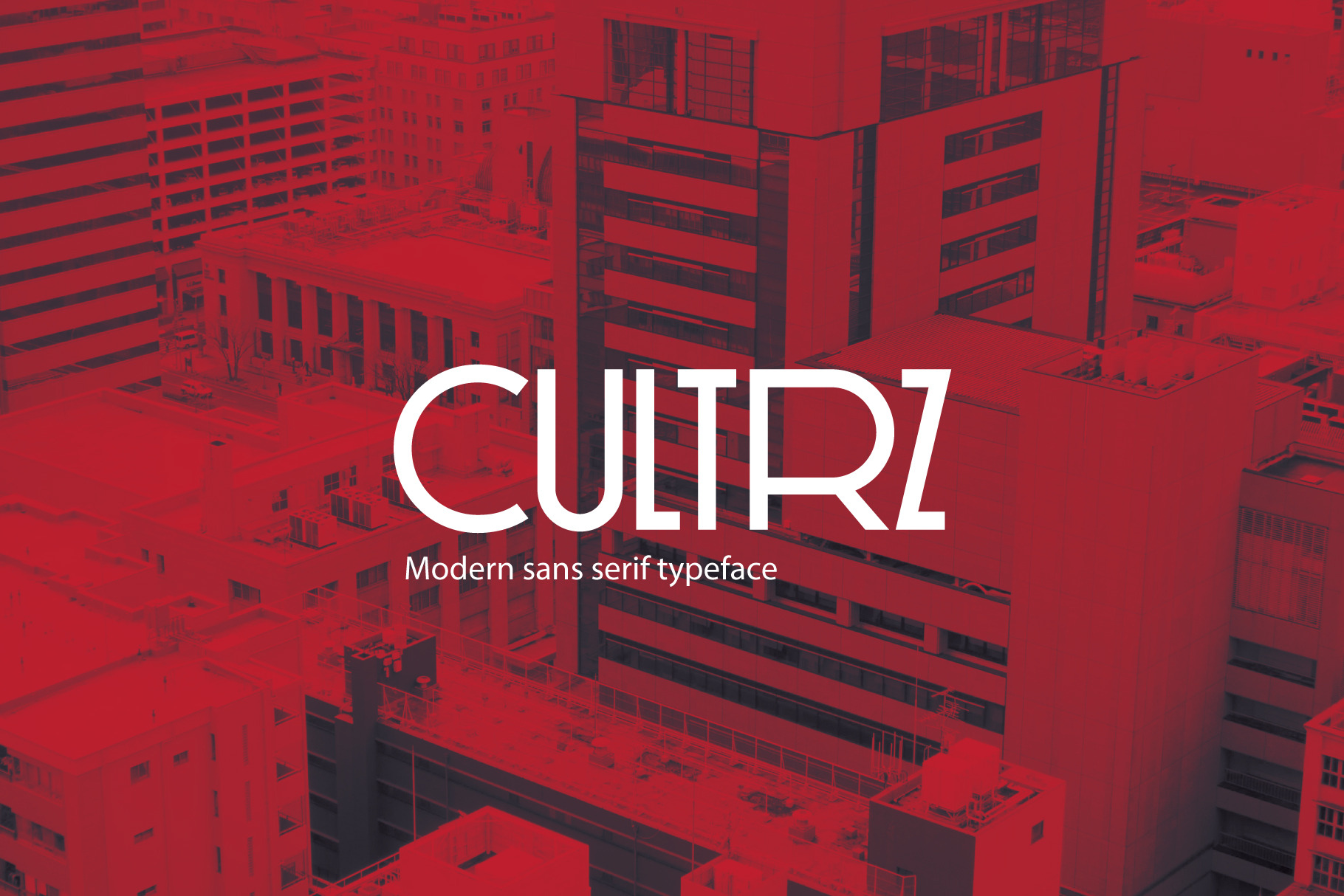
Cultrz Typeface
"Cultrz" is geometric display font. .
- Basic latin glyphs
- Uppercase letters
- Different width alternates
- Numbers & basic punctuation